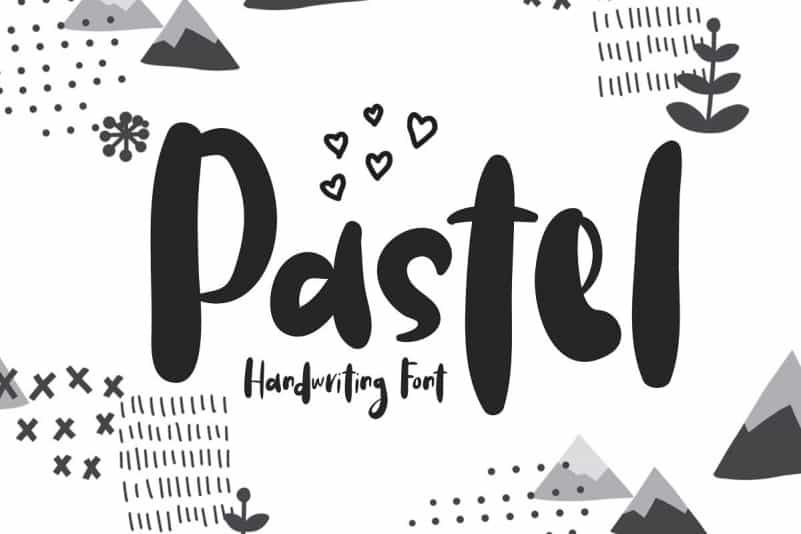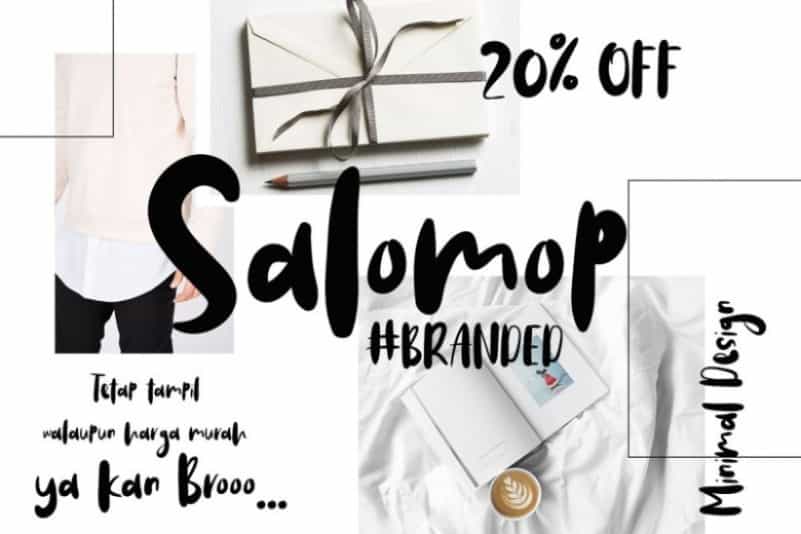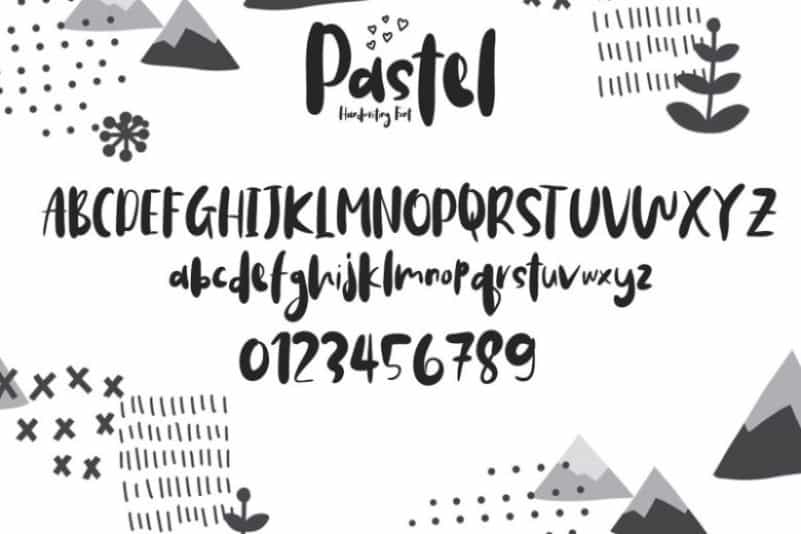
Pastel is a friendly handwritten font, ideal, for those who enjoy adding artistic ink strokes to their notes. It offers an playful character that works well for logos, business cards, magazine designs, invitations, headers and even large scale artworks.